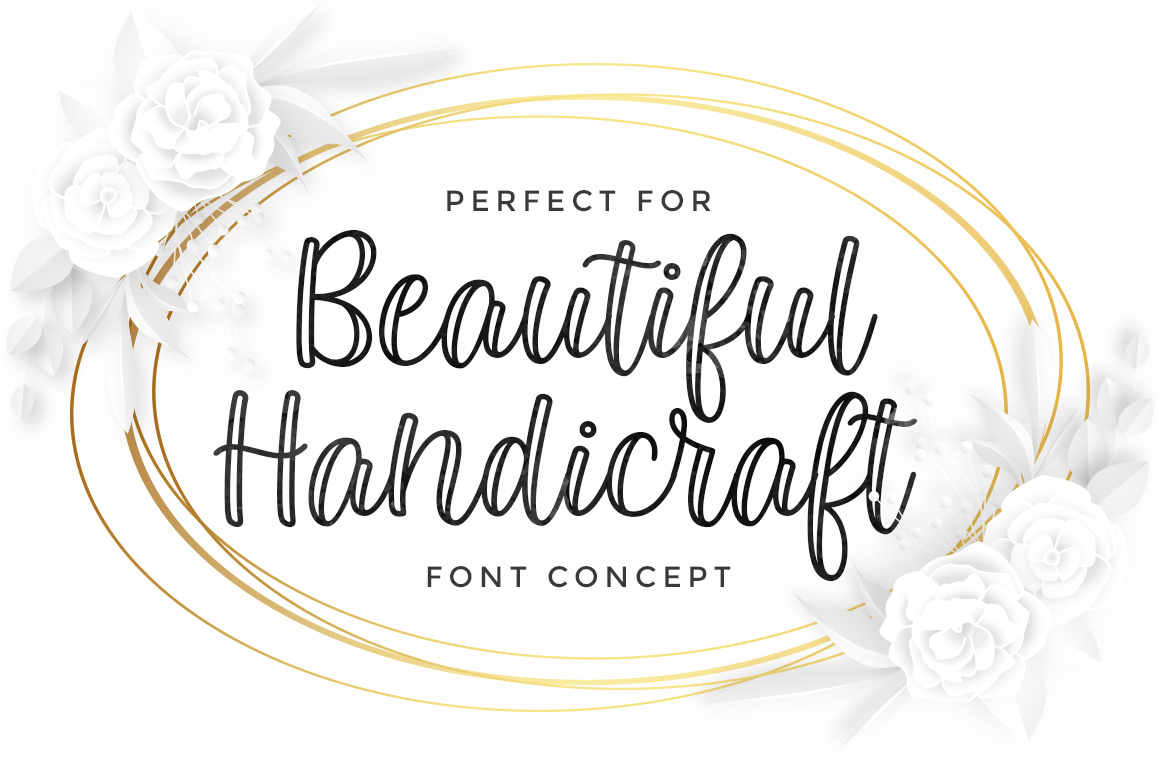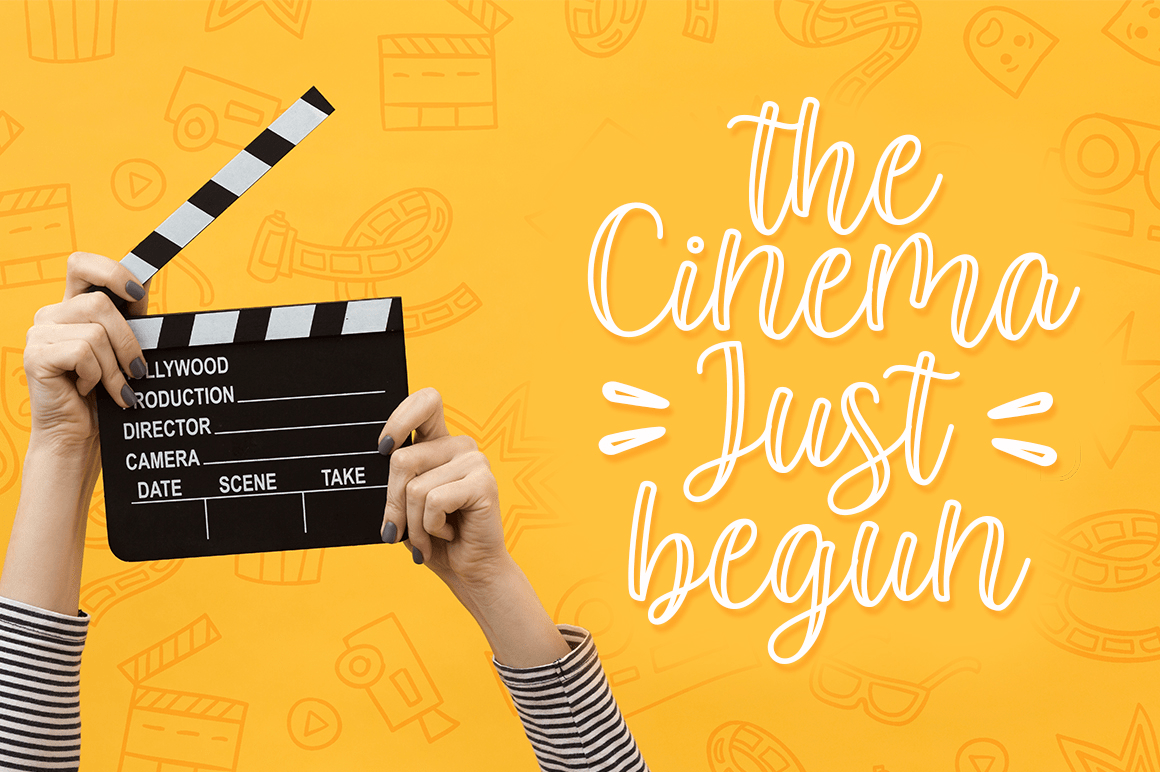
About Kembara Cinta Outline
Kembara Cinta Outline is a new, fresh, and modern hand lettered font, decorative characters and a dancing baseline! So beautiful on handicrafts, greeting cards, branding materials, business cards, quotes, posters, and more. Features: Unique ligatures…